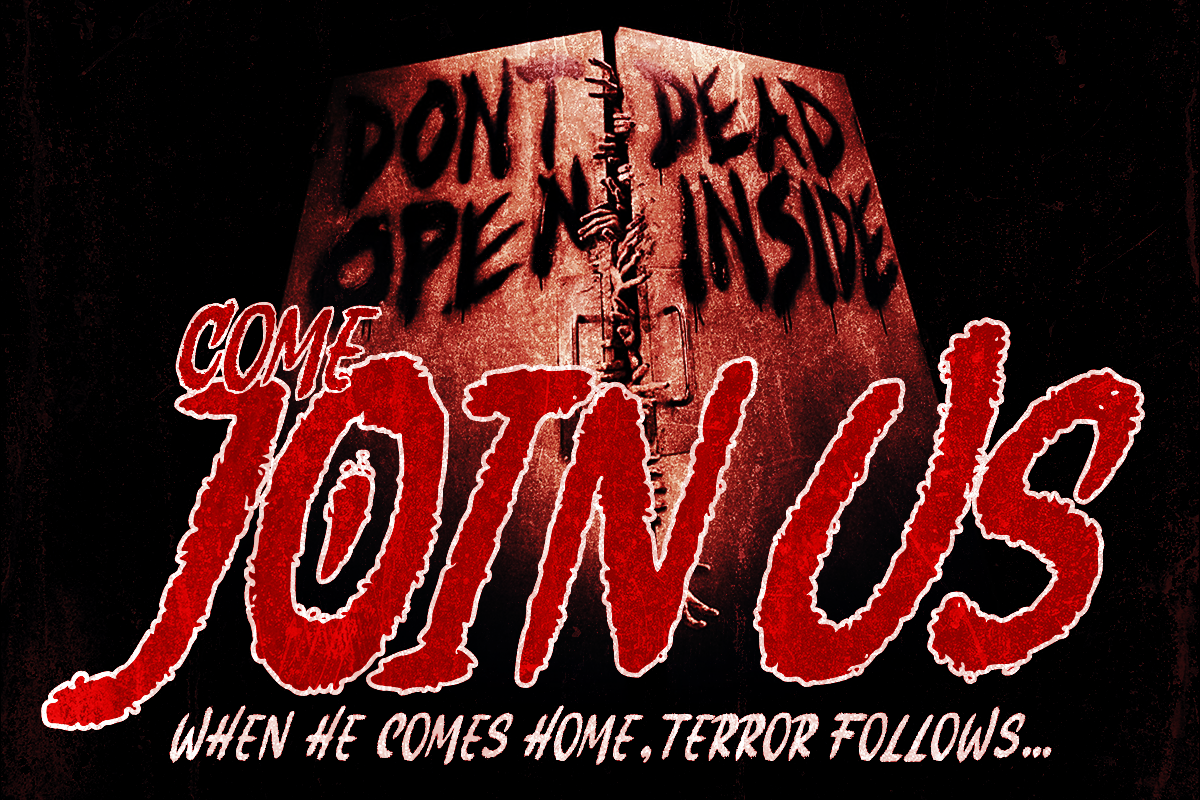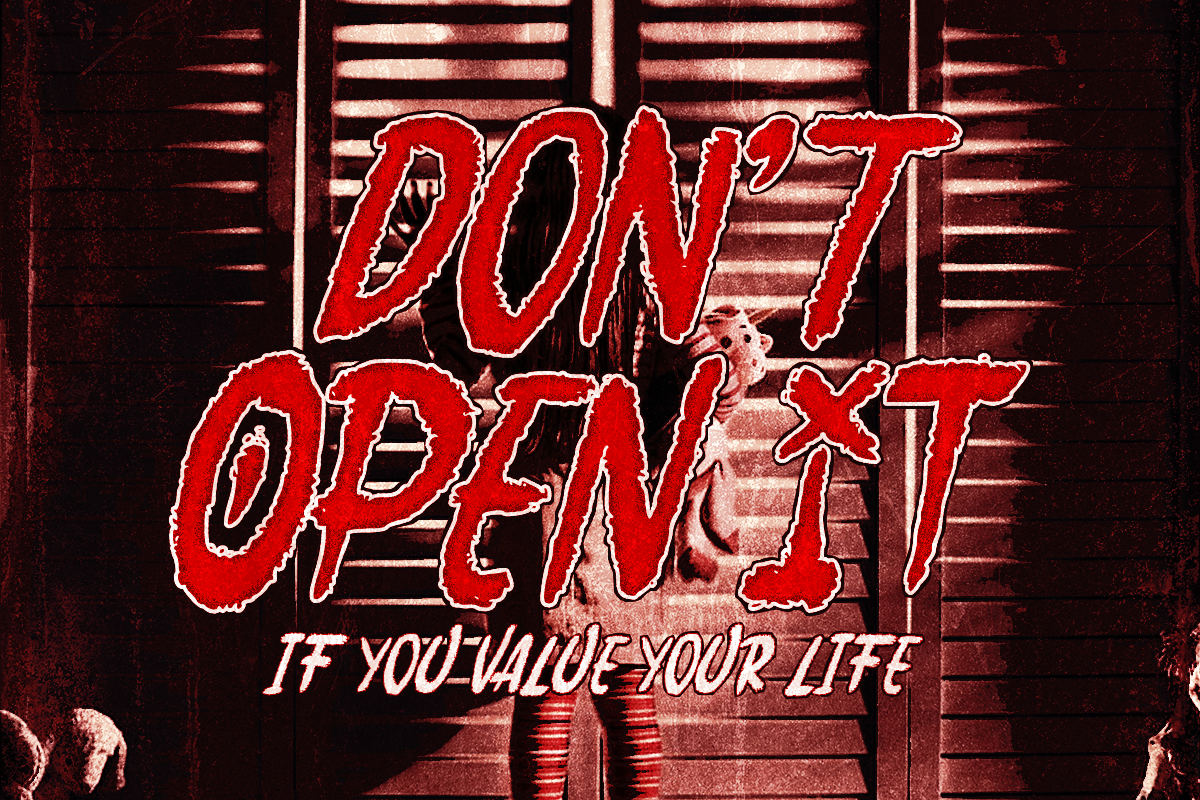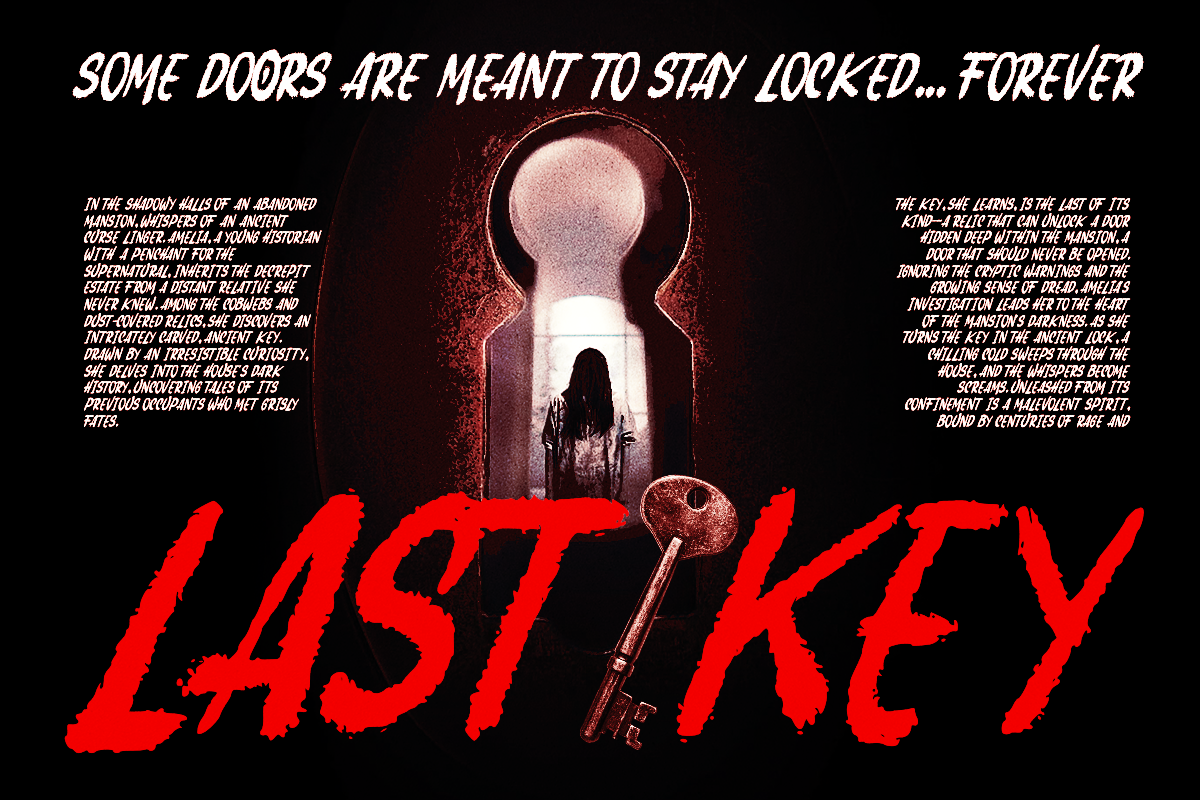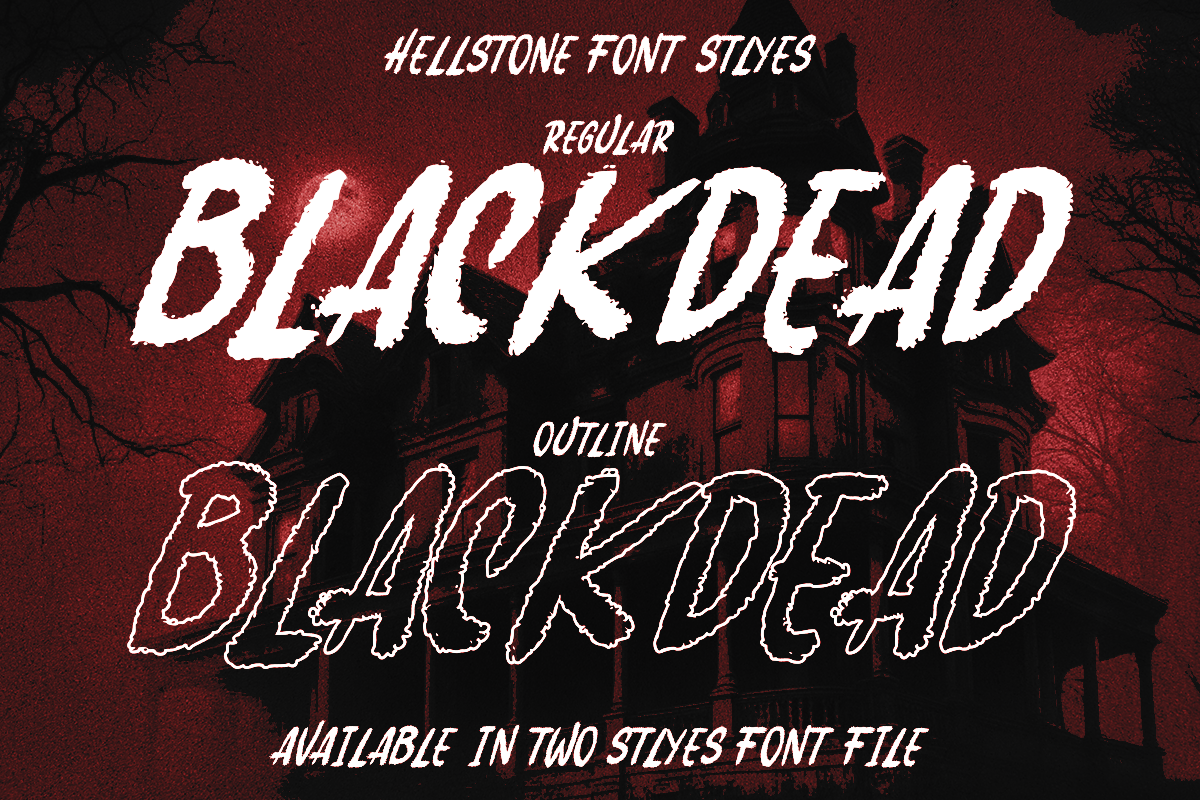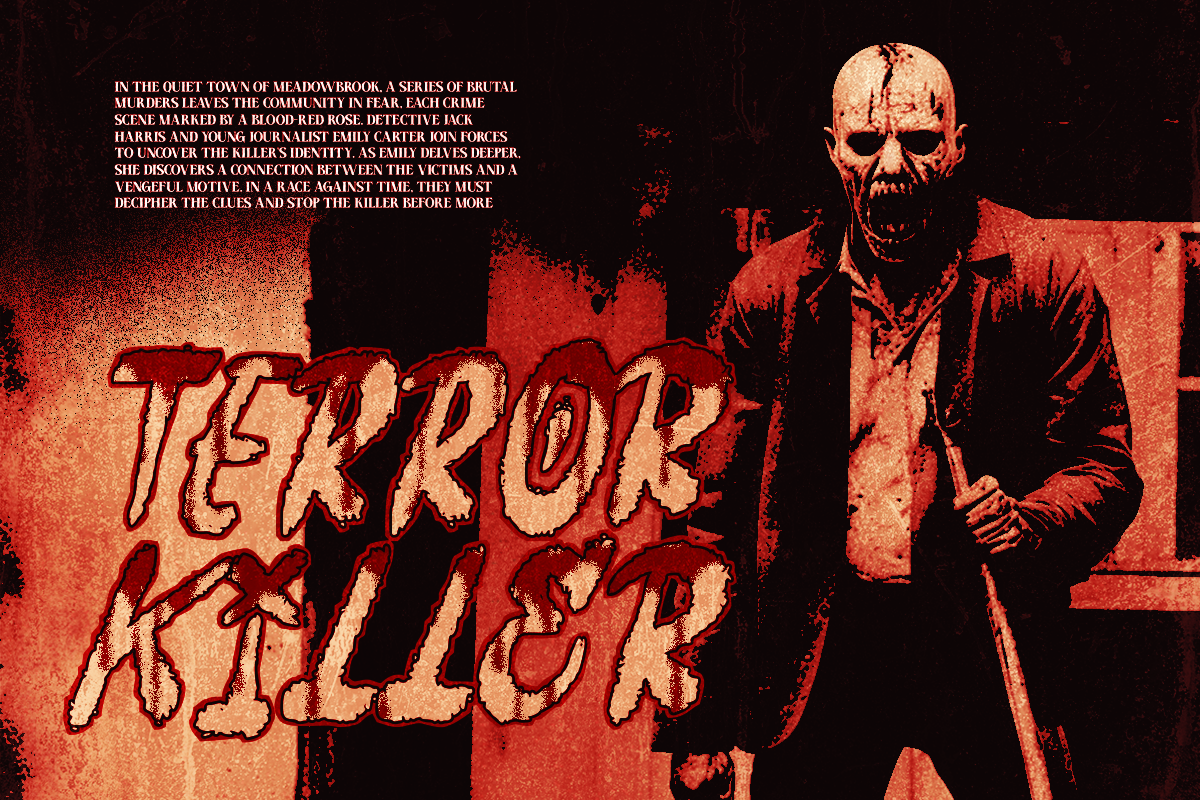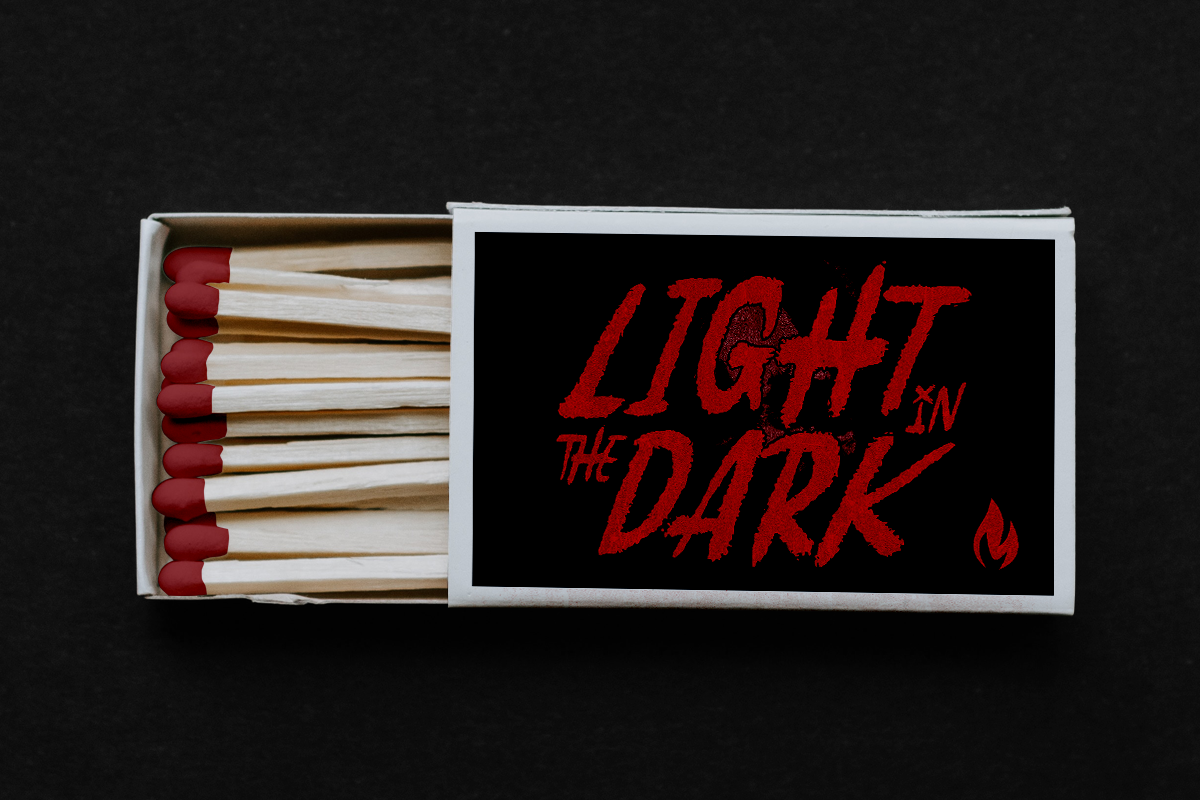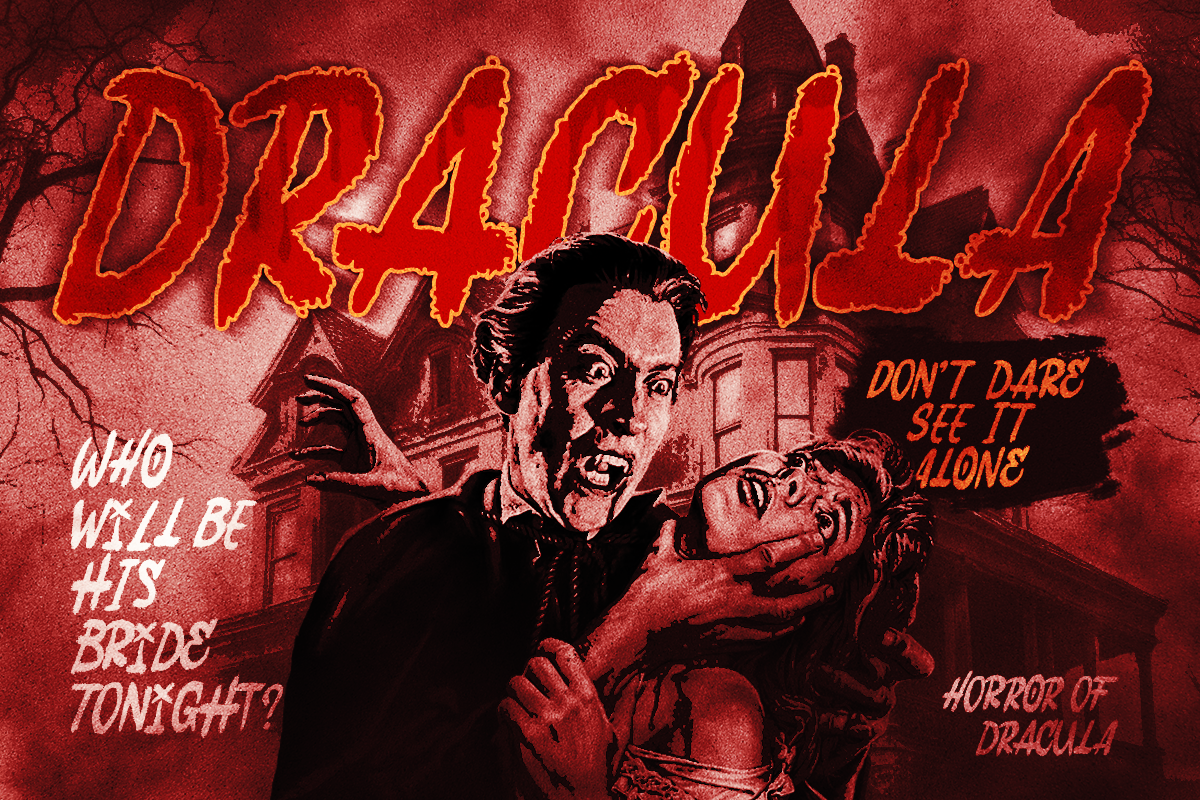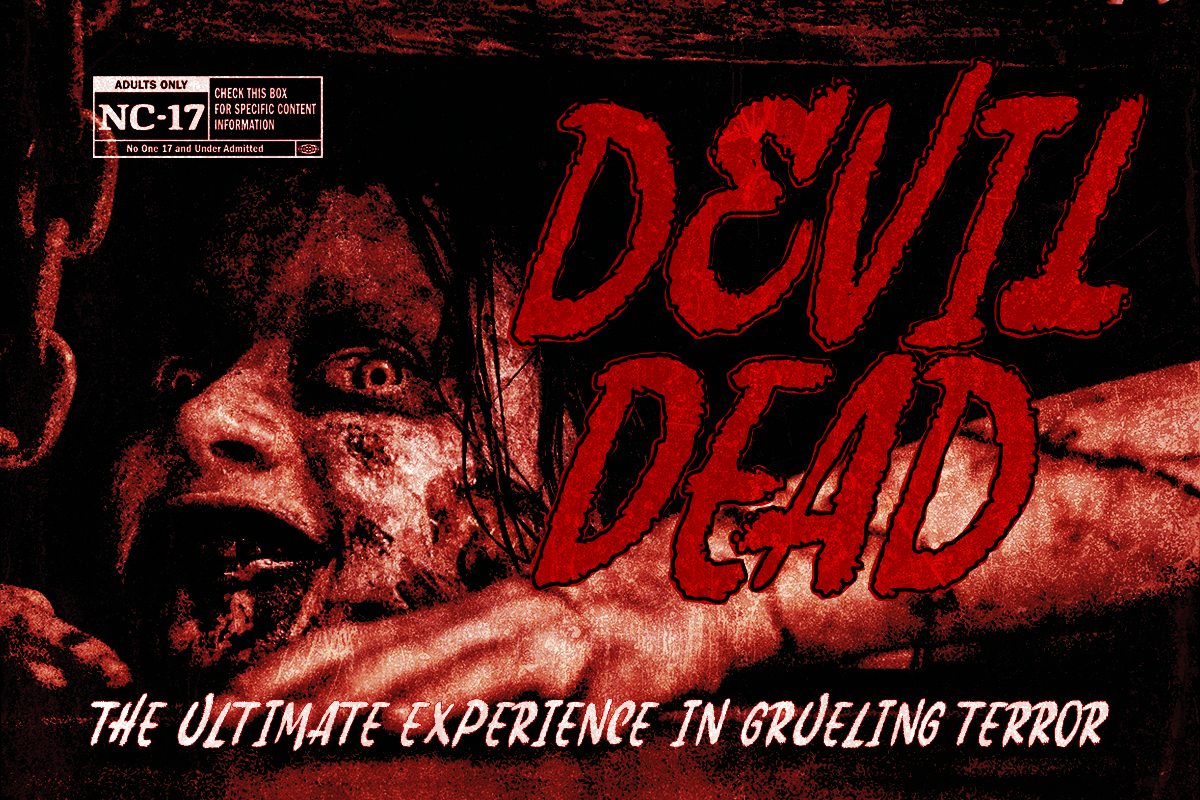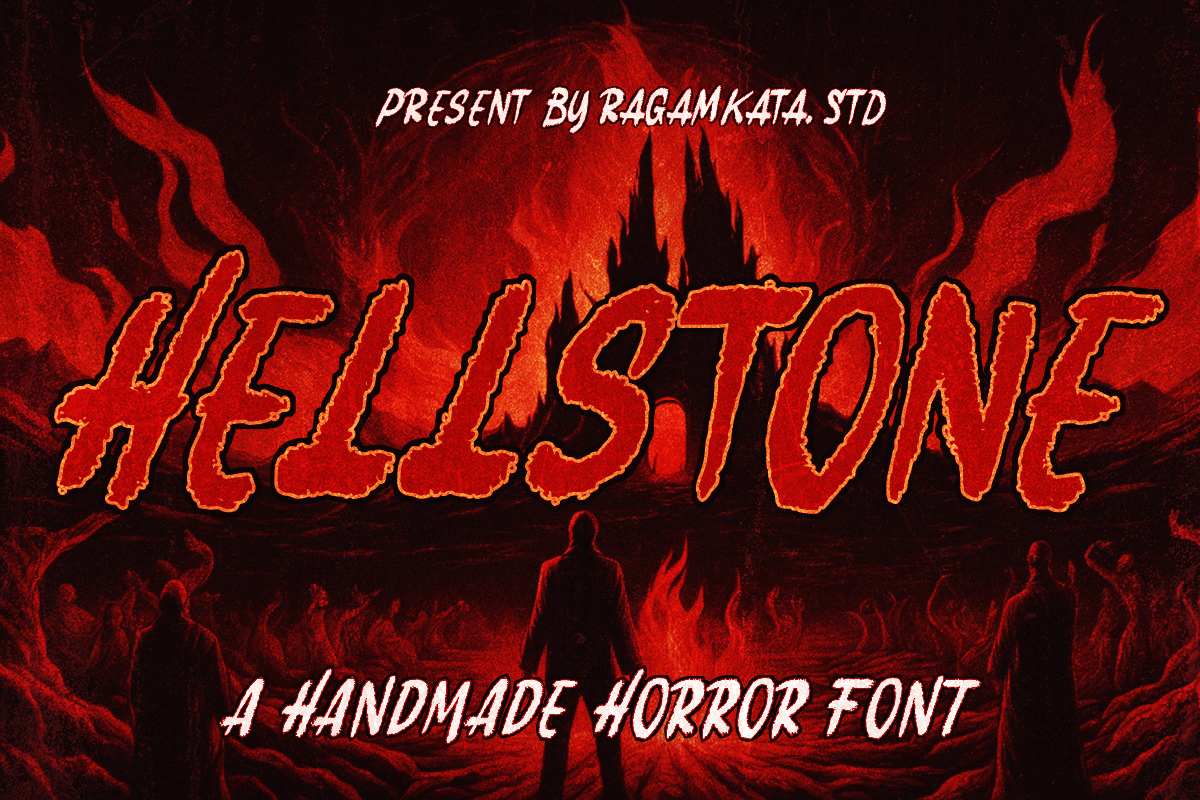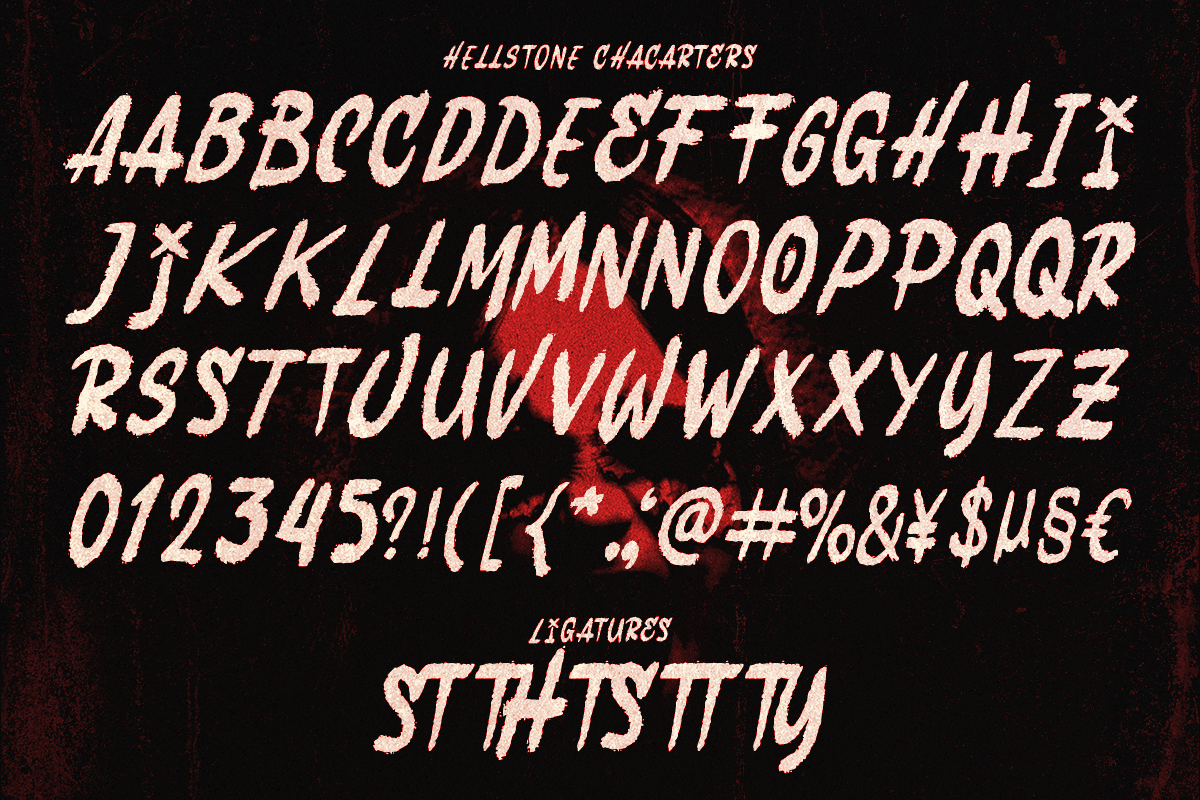
Hellstone - Horror Font
Introducing Hellstone a handmade horror font that embodies the essence of fear and dread. Inspired by the terrifying strokes of classic horror and thriller movie posters, Hellstone delivers a powerful, solid brush style that immediately sends shivers down your spine.
This rough, handwritten font is perfect for your next Halloween project, especially for horror movie posters that demand a creepy, unsettling atmosphere. With its unique lowercase and uppercase characters, Hellstone allows for creative combinations, giving your designs an authentic, handwritten feel. Whether you're aiming for an instant nightmare or a subtle scare, Hellstone is your go-to font for capturing the true essence of horror.
- Two styles: Regular and Outline
- Uppercse & Lowercase
- Punctuation & Number
- Ligatures Characters (Bonus)